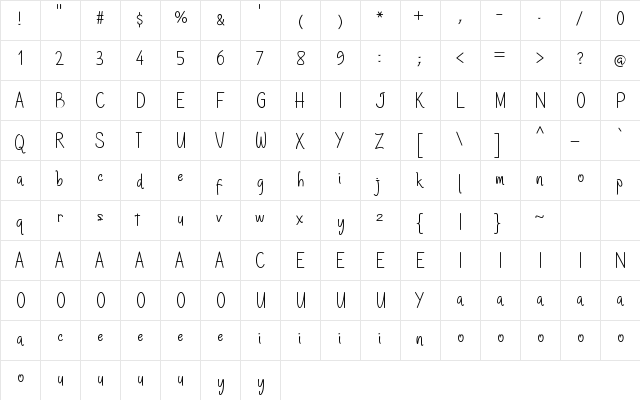
KickQuestions Regular
| Designer | Zkhai Creative |
Design Context for KickQuestions Typeface
KickQuestions takes a measured approach to typography — its balanced proportions and neutral character make it a reliable workhorse for both digital and print work.